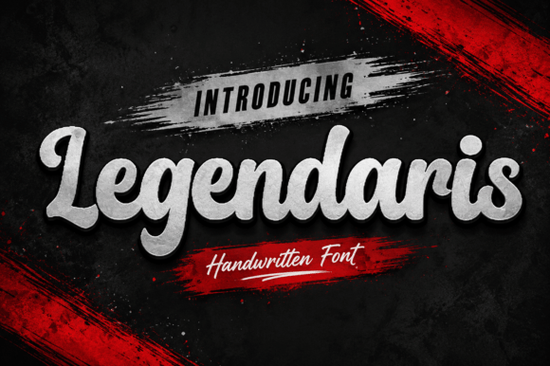
If you're looking for a script font that feels both bold and warm, Legendaris Font delivers exactly that. It’s not just another stylish typeface it’s crafted with intention, combining vintage charm with modern usability. Whether you’re designing a logo, creating social media graphics, or working on print-on-demand projects, this font brings personality without overwhelming your layout.
What makes Legendaris Font stand out?
Legendaris isn’t just about looks. Its handcrafted strokes give it a tactile feel like ink drawn by someone who knows how to balance strength and grace. The curves are fluid but never sloppy, and the thick-downstrokes add weight where it matters. This balance makes it perfect for designs that need to feel personal yet professional.
You’ll find it especially useful when you want to convey nostalgia, authenticity, or a touch of storytelling in your work. Think of it as the kind of font that fits well on a coffee shop sign, a wedding invitation, or a limited-edition product label.
Where can you use Legendaris Font effectively?
- Brand identities – Give your business a memorable voice with a distinctive logo or tagline.
- Posters and flyers – Grab attention with bold headlines that still feel inviting.
- Packaging design – Ideal for small-batch products like candles, soaps, or handmade goods.
- Social media content – Use it for quotes, announcements, or promotional posts that need visual impact.
- Print-on-demand items – Great for T-shirts, mugs, and tote bags where style meets readability.
Because it works across both digital and physical formats, it’s a versatile choice for creators who juggle multiple platforms.
How does it compare to other script fonts?
While many script fonts lean either too flashy or too plain, Legendaris finds a sweet spot. It’s more grounded than something like Frustiani Font, which has a more dramatic flair, and less rigid than Medasron Font. If you like the warmth of Glenthya Habithan Font but want a bit more structure, Legendaris is a solid middle ground.
It also holds up well at smaller sizes something that matters if you’re using it in captions or packaging details. You won’t lose clarity, even when scaling down.
Is it easy to use for non-designers?
If you’re new to typography, start by pairing Legendaris with a clean sans-serif font like Helvetica or Open Sans for contrast. That way, your message stays clear while the script adds character.
For crafters exploring sublimation printing, this font performs well on heat transfers. Its strong lines hold up under high temperatures, making it reliable for custom apparel and home décor.
And if you’ve used Disney-style script fonts before, you’ll appreciate how Legendaris offers similar whimsy but with a more mature, independent tone.
Final thoughts: Is Legendaris right for your next project?
If you’re after a font that feels genuine, readable, and full of character without being overly ornate then yes. It’s not the flashiest option on the shelf, but it’s one of the most consistent. It doesn’t demand attention; instead, it earns it through quiet confidence.
It’s especially helpful if you’re building a brand identity or creating content that wants to feel human, not automated.
- Try it with a neutral background to let the font shine.
- Use uppercase for headings and lowercase for body text to maintain rhythm.
- Pair it with simple icons or line drawings to keep focus on the typography.
- Always test how it looks in your final output especially at small sizes.
Ready to bring a little vintage soul into your next design? Legendaris Font could be the subtle upgrade your project needs.